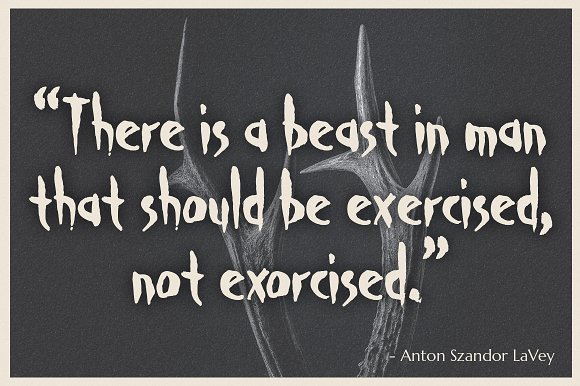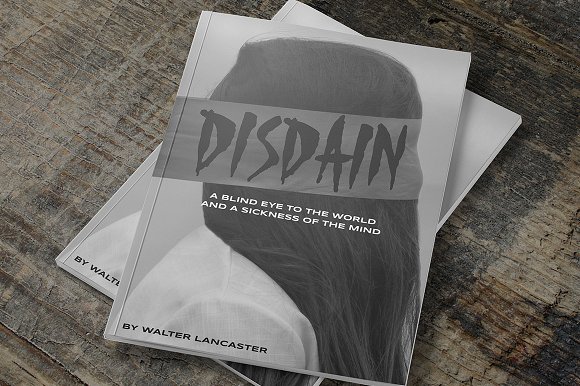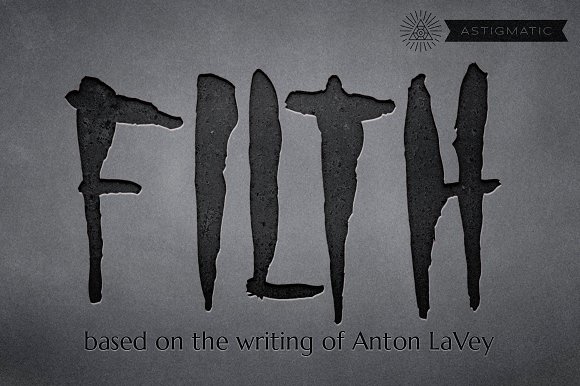
Filth AOE Display Font
Filth AOE was developed from a magazine layout I’d seen featuring Anton LaVey which had his brush lettering depicted as well. Fascinated with the dark and eerie feeling of his brush handwriting style, I decided to recreate and expand what I saw into a typeface. And so it came to be.